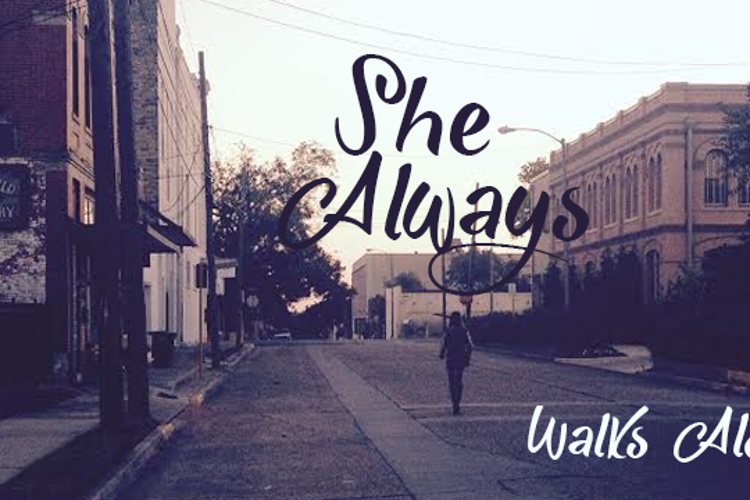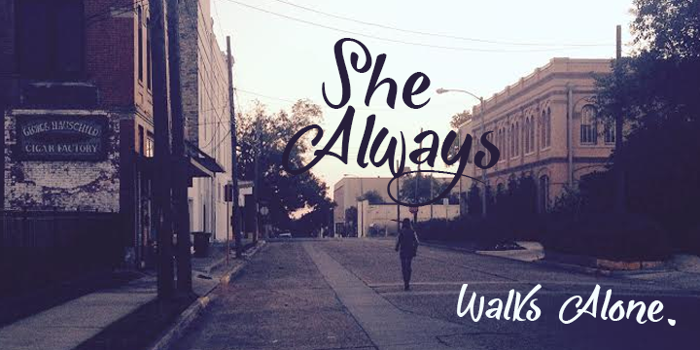
She Always Walk Alone Demo Font
SHE ALWAYS WALKS ALONE DEMO is a demo version of a quirky brush font.
This font is really interesting. Looks really good.